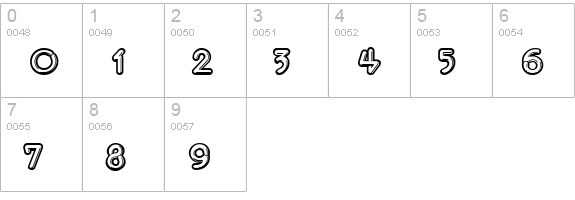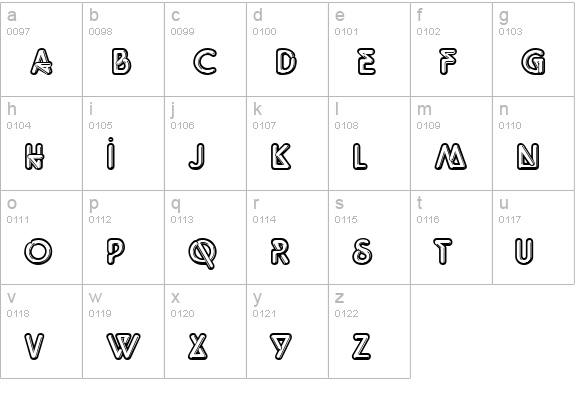
TR Quicksilver ITCNormal Font Details
TR Quicksilver ITC is a versatile and elegant font that exudes modernity and sophistication. With its clean lines and balanced proportions, this typeface is perfect for a wide range of design projects. Whether you're creating a sleek corporate identity, designing a stylish website, or crafting eye-catching marketing materials, TR Quicksilver ITC is sure to make a lasting impression. What's even better is that TR Quicksilver ITC is completely free to download at FontsMarket.com. That's right, you can enhance your projects with this beautiful font without spending a dime. So why wait? Give your designs a touch of class with TR Quicksilver ITC today!